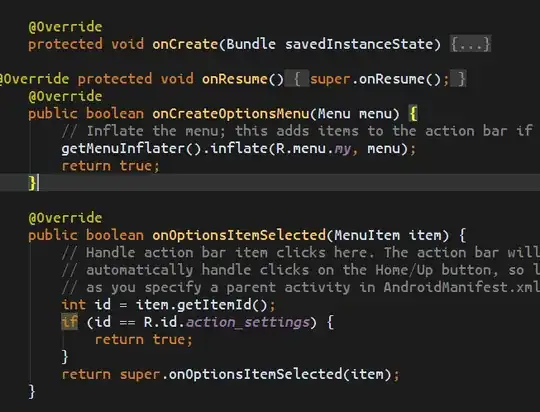
It doesn't even recognise it as a Monospaced font. Then it only shows anti-aliasing when the font size is set to 20 or over. But for other fonts it does it at 16.
The result is ugly looking fonts and eye-strain when set to 16, which is still large.
I have tried various settings for Dawt.useSystemAAFontSettings and still the same issue.
Ubuntu Monospace font looks fine in Eclipse and other text editors.Where in Eclipse it's size 12 and it renders fine.
Here are some screenshots Ubuntu Mono 16 :Ubuntu Mono 16
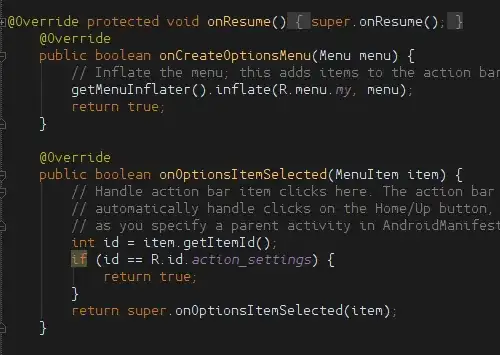
Ubuntu Mono 20 Ubuntu Mono 16
Source Pro 16 (I think comes with Studio) Source Pro 16
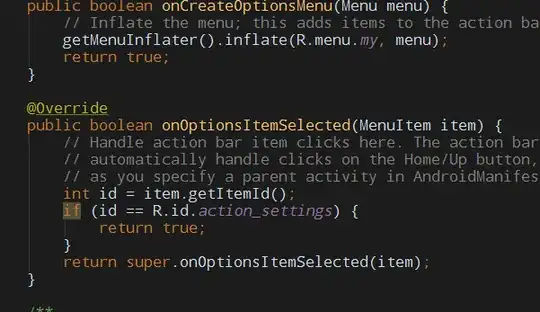
Ubuntu Mono 12 in Eclipse (ideal for me) Ubuntu Mono 12 in Eclipse
Is there another setting that is controlling what size to turn on anti-aliasing on a font. Is there a way to control the dpi setting used in the Android Studio.
Anyone else have other font recommendations. I have tried droid mono, and other default ones that come with Ubuntu.
The problem is not anti-aliasing - all of your examples show the text is anti-aliased fine.
The difference is in an aspect of font rendering called "hinting" - the top Ubuntu Mono example shows a strong hinting, whereas the bottom Ubuntu Mono example shows a smoother hinting. Hinting deforms the letter shapes to better align to the pixel grid and give a more crisp appearance.
Whether you like one or the other is a matter of personal preference. The top one is certainly very clear to read but at the expense of deforming the letter shapes.
The Java environment will be using its own font renderer rather than your global settings, hence the difference.